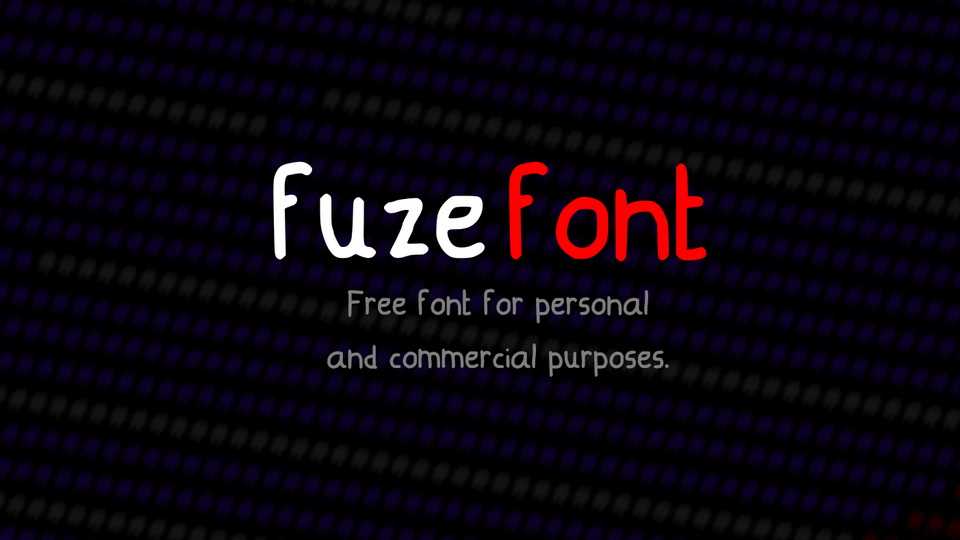
Download FuzeFont, a font created for the French youtuber FuzeIII. With its natural handwritten look FuzeFont is perfect for adding a personal touch to any design.
Designer: CFuzesques